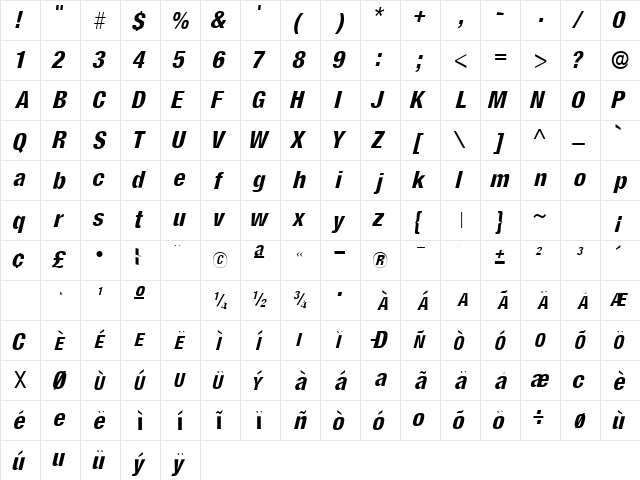
AcmoSSK Italic
Design Context for AcmoSSK Typeface
AcmoSSK takes a measured approach to typography — its balanced proportions and neutral character make it a reliable workhorse for both digital and print work. The dynamic lean of this cut emphasises speed and emphasis in any layout.
Pro Tip: Try AcmoSSK for annotation and caption copy alongside an upright companion — the contrast in angle creates a dynamic but ordered typographic system.